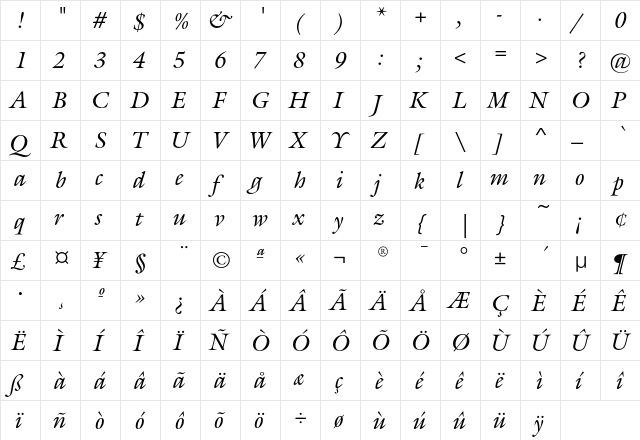
GalliardEF-Italic Regular
Design Context for GalliardEF-Italic Typeface
GalliardEF-Italic offers clean, dependable letterforms without strong stylistic allegiance, making it a practical choice for designers who need flexibility. Its italic angle brings a sense of urgency and motion to the letterforms.
Pro Tip: Try GalliardEF-Italic for annotation and caption copy alongside an upright companion — the contrast in angle creates a dynamic but ordered typographic system.